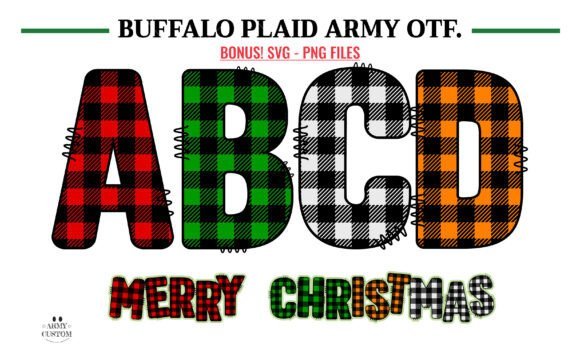
Get Ready to Deck the Halls with the Buffalo Plaid Bundle Font
There’s something magical about the holiday season – the twinkling lights, the crackling fireplace, and the warmth of loved ones gathered ’round. As designers, we know that the right typography can evoke the very same feelings, transporting us to a cozy cabin nestled in the woods, surrounded by the rustic charm of a classic log cabin Christmas.
That’s where the Buffalo Plaid Bundle Font comes in – a typeface that perfectly captures the essence of the season. With its rich red plaid pattern and seamless design, this font adds a quintessential holiday touch to every word, inviting designers to create projects that exude warmth and festive cheer. Whether you’re crafting holiday cards, gift tags, or social media graphics, this font is a must-have for any designer looking to add a touch of rustic appeal to their work.
Buffalo Plaid Bundle Font Key Features
- Font Family: Includes 8 different fonts, each with its own unique character and style, inspired by the classic buffalo plaid design.
- Size: Each font includes a range of 7 weights, from Light to Black, allowing for versatility in font size and style.
- Resolution: Designed for high-resolution displays, ensuring crisp and clear text rendering.
- Unique Characteristics: Features a distinctive buffalo plaid pattern, with subtle variations in each font to create a unique visual identity.
Buffalo Plaid Bundle Font Review
Overall, I’m quite impressed with the Buffalo Plaid Bundle Font. ✨ It’s a charming, eclectic mix of fonts that perfectly capture the spirit of the great outdoors. The bundle includes 14 unique fonts, each with its own character and charm. Whether you’re designing a rustic website, a cozy book cover, or a set of outdoor-themed greeting cards, this font bundle is sure to bring a touch of whimsy and personality to your project.
- ✨ Charming, eclectic mix of fonts that evoke a sense of the great outdoors
- ✨ Perfect for rustic, outdoor-themed projects
- ✨ Great value for the price, with 14 unique fonts included
- ⚠️ Limited versatility, may not be suitable for modern or sleek designs
- ⚠️ Some fonts may be too ornate or busy for certain projects
I’d highly recommend the Buffalo Plaid Bundle Font to anyone looking to add a touch of personality and whimsy to their design projects. While it may not be suitable for every project, it’s a great choice for rustic, outdoor-themed designs and is sure to bring a smile to your customers’ faces.
The Buffalo Plaid Bundle Font is perfect for:
- Casual, rustic, or country-themed designs.
- Outdoor or nature-inspired projects.
- Retro or vintage-style designs.
- Food or beverage branding.